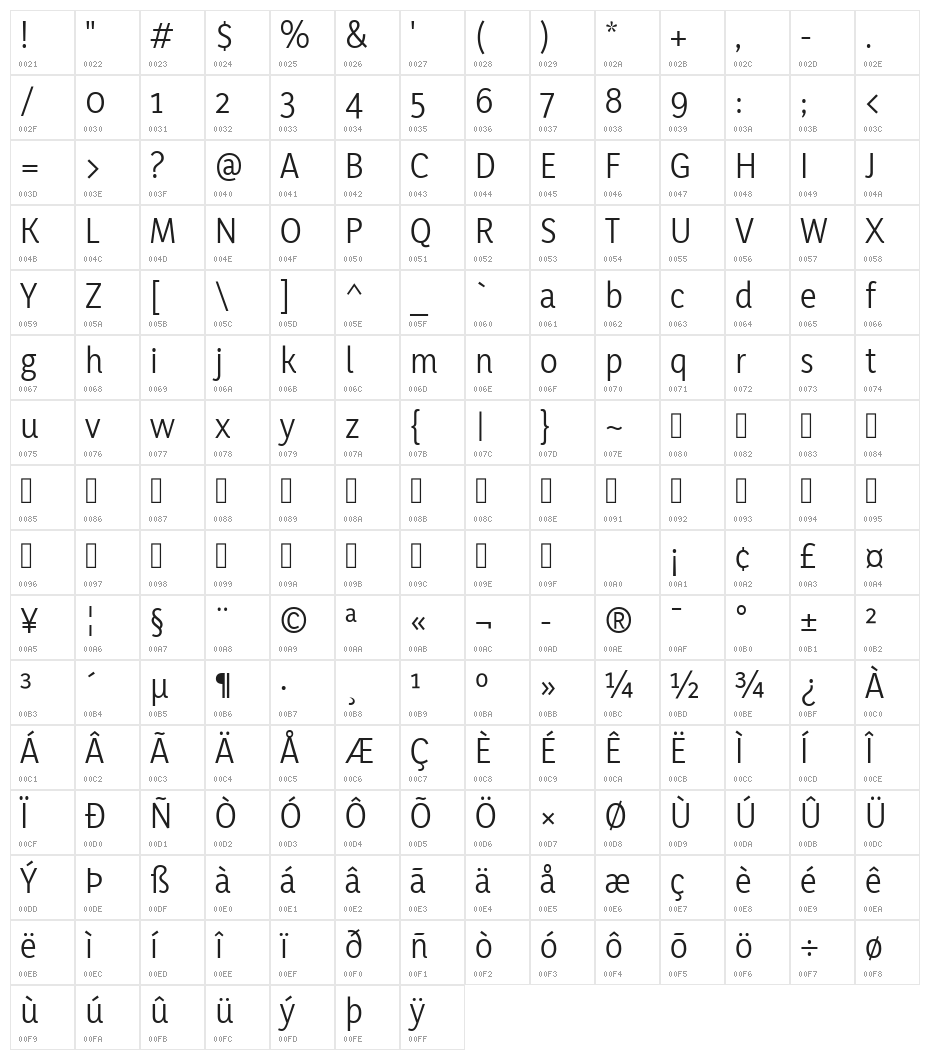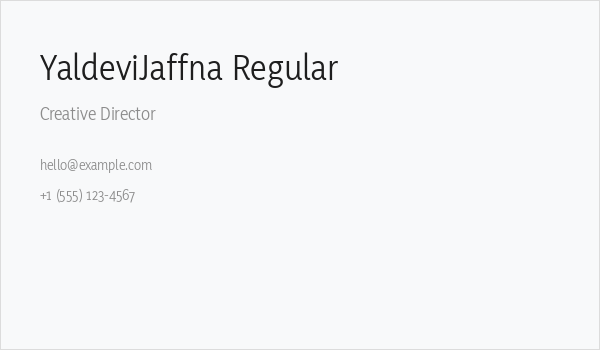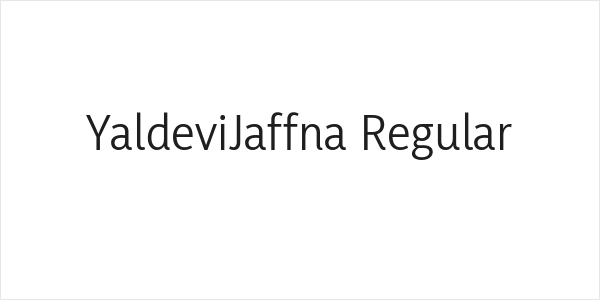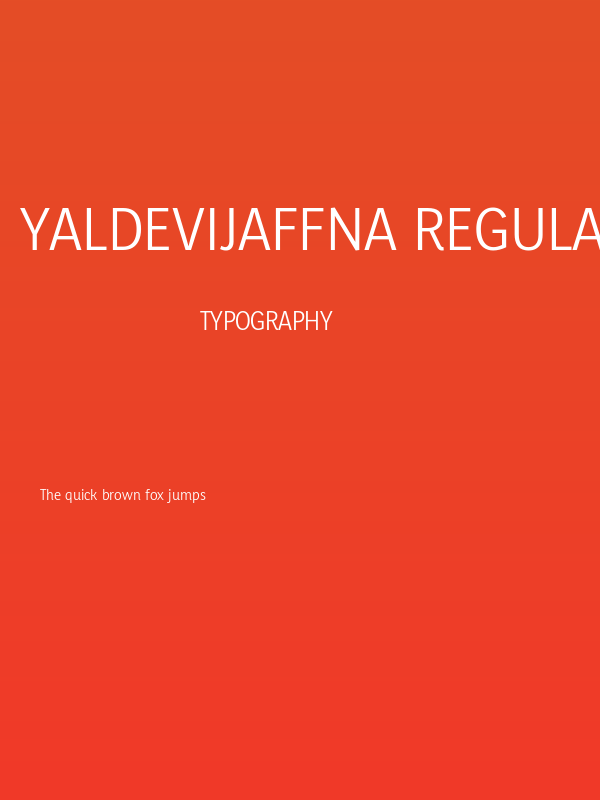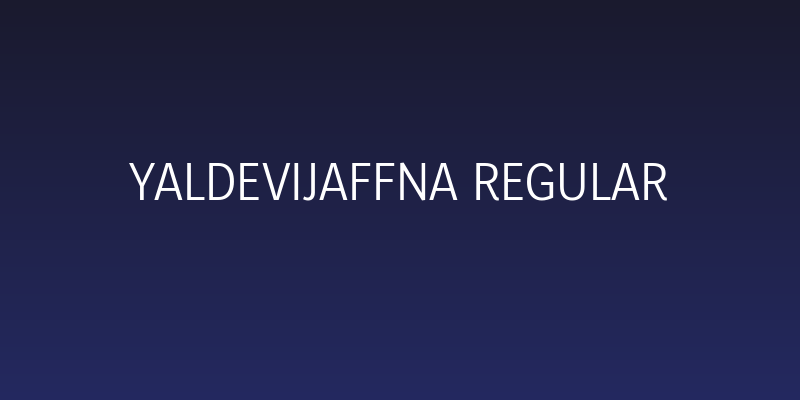
YaldeviJaffna Regular Font
YaldeviJaffna Regular Description
This typeface features a clean and modern sans-serif design, characterized by its simplicity and readability. The letters are well-proportioned with a uniform stroke width, providing a balanced and harmonious appearance. The uppercase and lowercase letters are distinct yet cohesive, making it versatile for various applications. The numerals are clear and easy to read, while the special characters are well-integrated, maintaining the overall aesthetic. This font's straightforward design makes it suitable for both digital and print media, offering a professional and contemporary look.